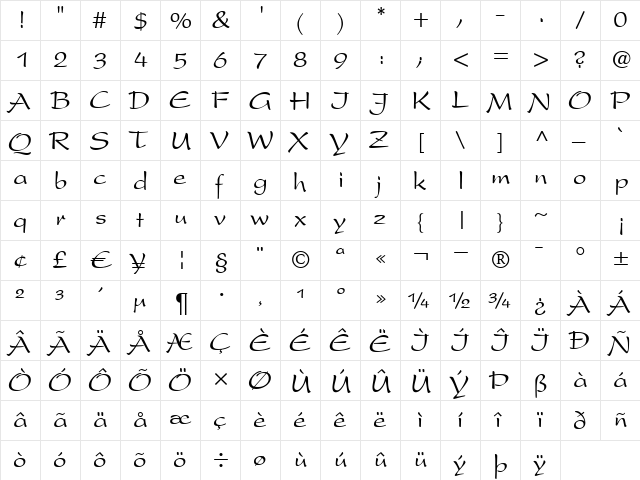
P820-Script Regular
Design Context for P820-Script Typeface
P820-Script brings a calligraphic fluidity to the page — its connecting strokes and expressive curves give it an unmistakably human quality.
Font Pairing: Combine P820-Script with a simple geometric sans for maximum contrast — the tension between flowing curves and clean structure is a classic typographic pairing.
Pro Tip: Use P820-Script for short runs of text — names, titles, or taglines. Extended body copy in script faces tires the eye quickly.